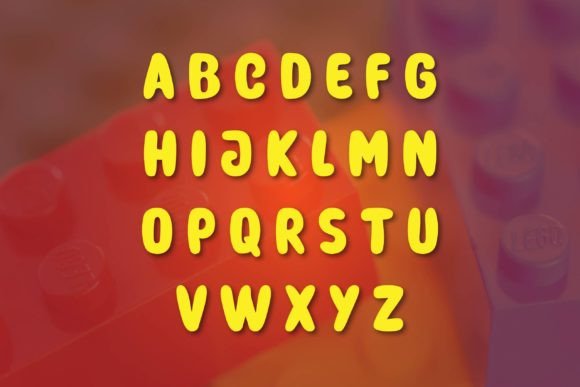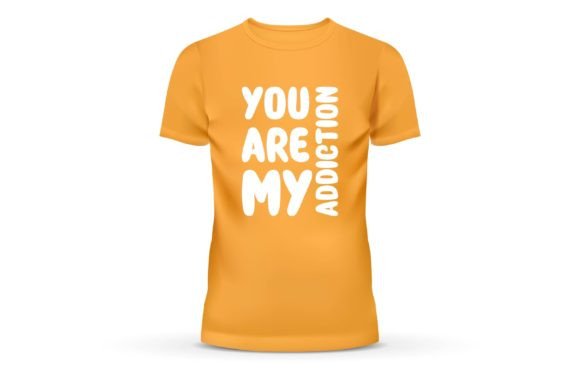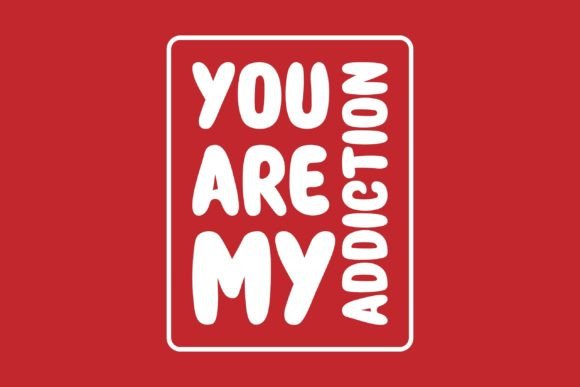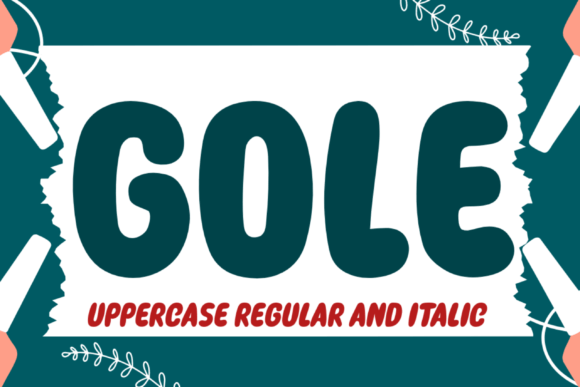
Introducing Gole Font: A Sweet and Friendly Handwritten Delight
Are you tired of using the same old fonts in your designs? Look no further! We’re excited to introduce Gole Font, a sweet and friendly handwritten font that’s sure to add a touch of personality to your projects. With its natural and unique style, Gole Font is incredibly versatile and can be used in a wide range of designs, from playful and whimsical to elegant and sophisticated.
Gole Font is a handcrafted font that’s designed to make your designs stand out from the crowd. Its unique and natural style makes it perfect for a variety of projects, including:
- Blog and website design
- Stationery and card design
What Makes Gole Font So Special?
So, what sets Gole Font apart from other fonts? Here are just a few reasons why we’re so excited about this sweet and friendly handwritten font:
- Unique and natural style: Gole Font has a one-of-a-kind look that’s both playful and elegant.
- Highly versatile: This font can be used in a wide range of designs, from casual and fun to formal and sophisticated.
- Easy to read: Despite its playful style, Gole Font is incredibly easy to read, making it perfect for body text and headlines.
How to Use Gole Font in Your Designs
Using Gole Font in your designs is easy! Here are a few tips to get you started:
- Pair it with other fonts: Gole Font looks great when paired with other fonts, such as sans-serif fonts for a modern look or serif fonts for a more traditional feel.
- Experiment with different sizes: Gole Font can be used at a range of sizes, from large headlines to smaller body text.
- Add some color: Gole Font looks great in a variety of colors, from bright and bold to soft and pastel.
Getting Creative with Gole Font
The only limit to what you can create with Gole Font is your imagination! Here are a few ideas to get you started:
- Create a handmade-style craft project: Use Gole Font to add a personal touch to your craft projects, such as scrapbooking, card making, or DIY home decor.
- Design a social media graphic: Use Gole Font to create eye-catching social media graphics that will help your posts stand out.
- Develop a brand identity: Use Gole Font to create a unique and recognizable brand identity for your business or personal brand.